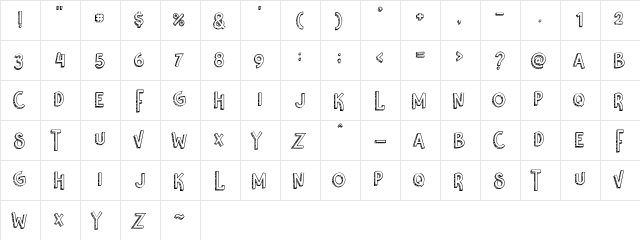
Nikolas & Pine Regular
| Foundry | Khurasan |
| Designer | Khurasan |
Design Context for Nikolas & Pine Typeface
Nikolas & Pine is a composed and adaptable typeface that performs quietly and consistently across a wide range of design contexts.